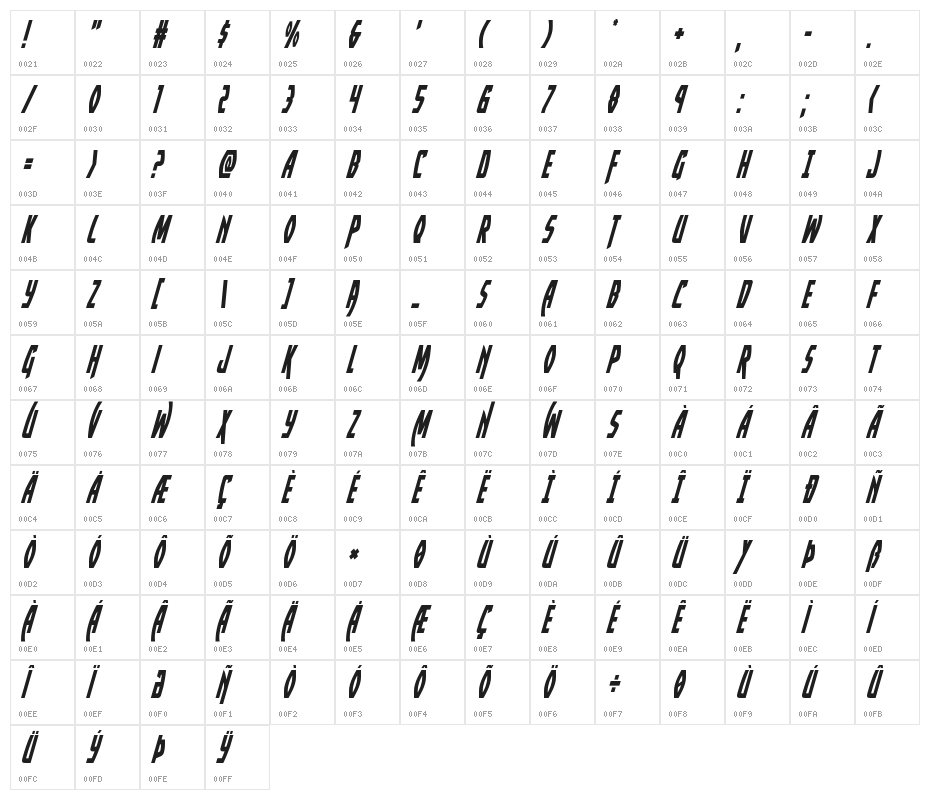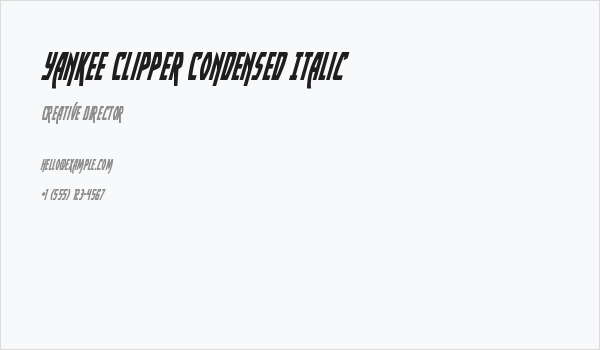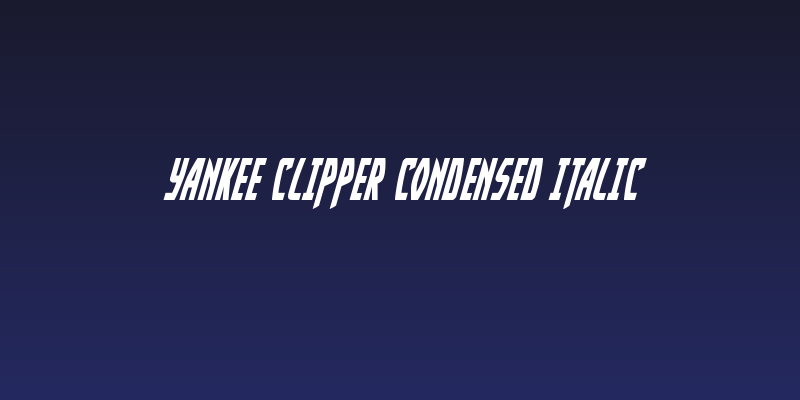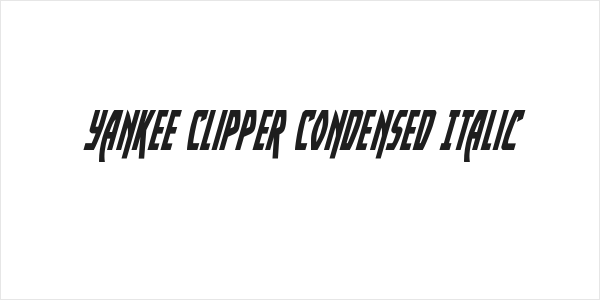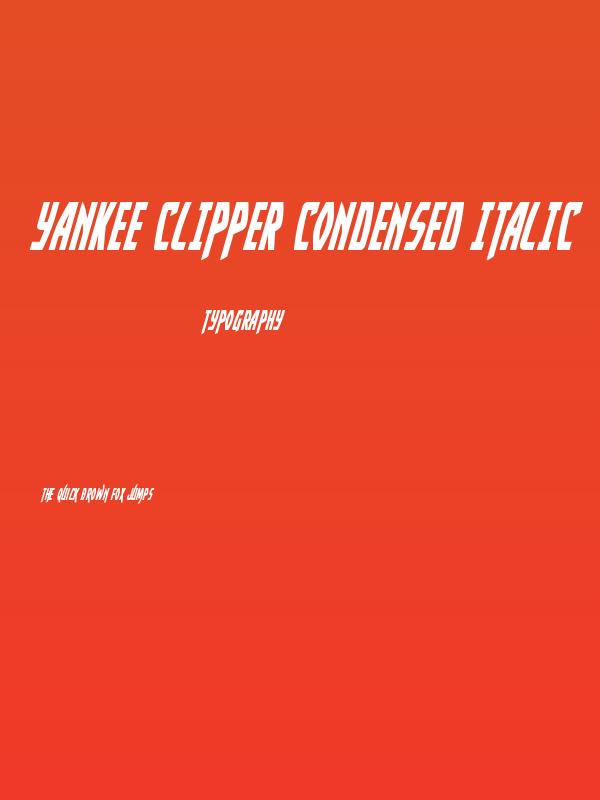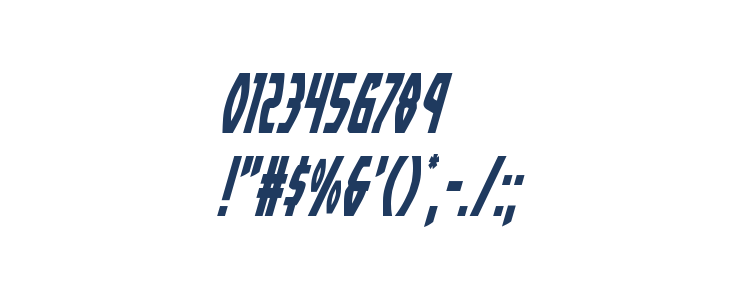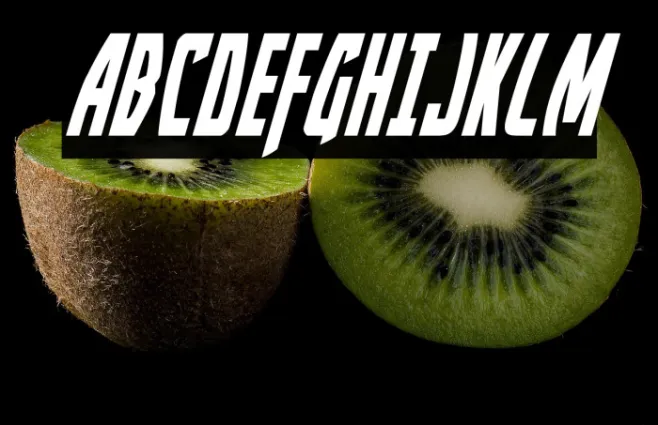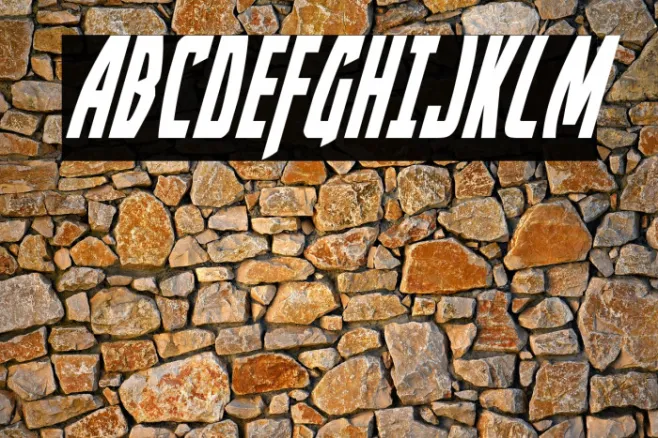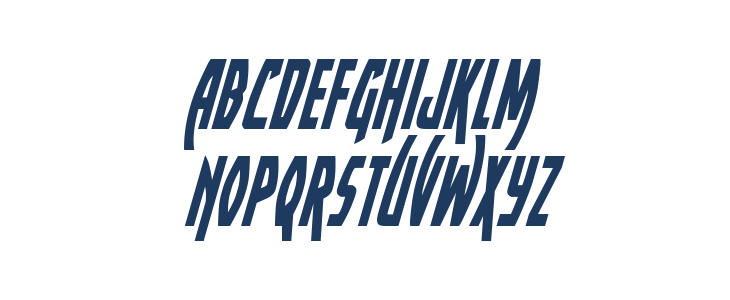
Yankee Clipper Condensed Italic Font
Yankee Clipper Condensed Italic Description
This font features a bold and dynamic style with a strong italic slant, giving it a sense of motion and energy. The characters are condensed, enhancing the compact and impactful appearance. The strokes are thick and consistent, providing a uniform look across all characters. The uppercase and lowercase letters maintain a cohesive design, with sharp angles and clean lines that contribute to its modern aesthetic. The numerals and special characters are designed to match the overall style, ensuring versatility and readability. This font is ideal for projects that require a bold statement and a contemporary feel.
| Proposed Projects | Ideal for sports branding, dynamic posters, modern advertisements, and eye-catching headlines. |